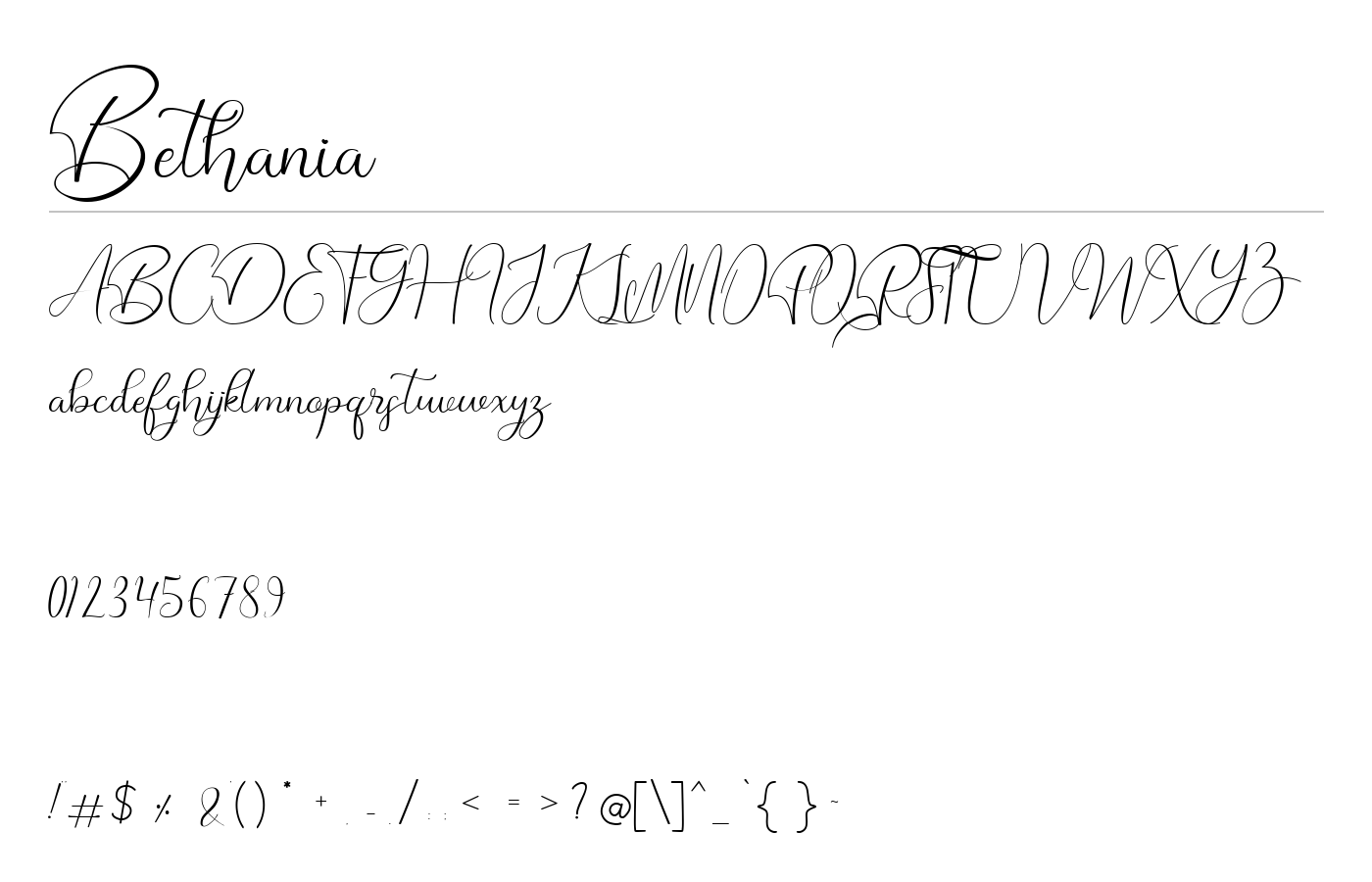
Bethania is a delicate and elegant script font characterized by its thin, flowing strokes and graceful, looping letterforms. Its light weight and high x-height create a refined, airy feel perfect for romantic and sophisticated designs such as wedding invitations, luxury branding, and elegant logos. This font’s ornamental style adds a personal and artistic touch, making it ideal for projects that require a feminine, stylish, and handcrafted aesthetic.
Bethania Font
About Bethania Font